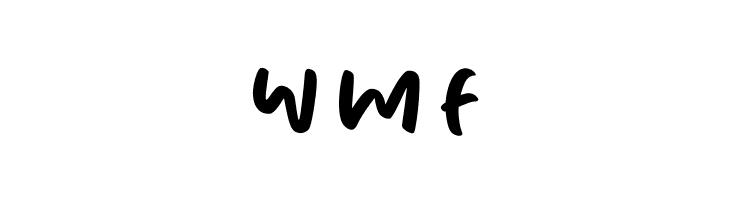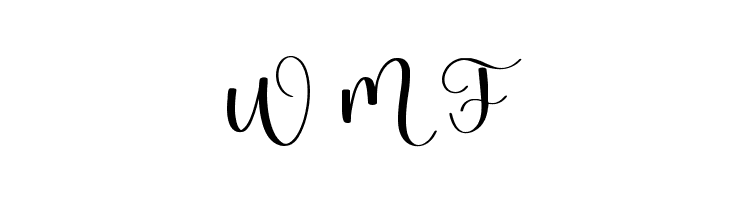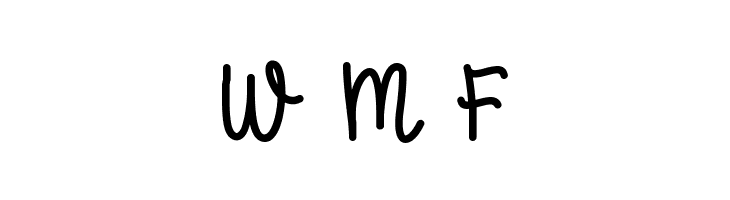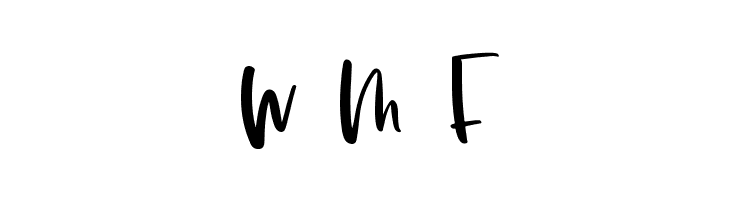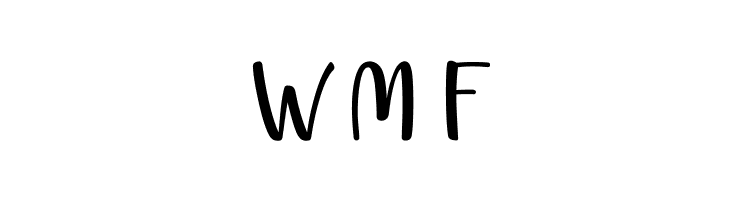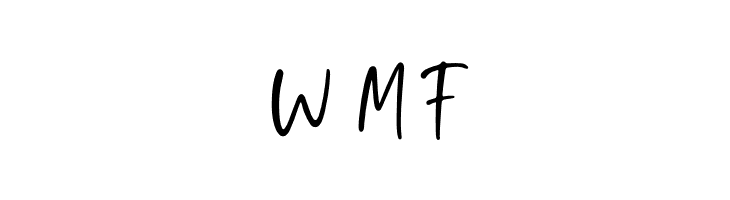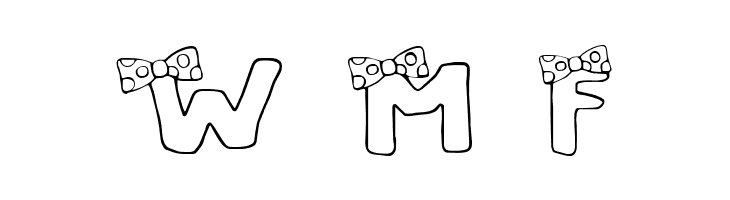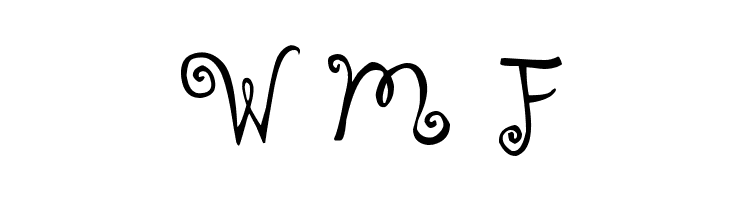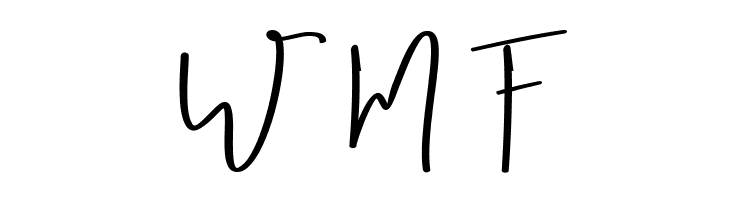
A decorative and elegant script font with flowing, intricate letterforms.
A bold, playful handwritten font with a dynamic and friendly style.
A lively, handwritten font with a casual and friendly style.
A whimsical, hand-drawn font with curly embellishments and a playful style.
A thin, whimsical font with a hand-drawn, organic feel.
A playful, whimsical script font with elegant loops and a handwritten feel.
A bold, playful handwritten font with smooth, thick strokes.
A playful, cursive script font with interconnected, smooth strokes.
A playful, handwritten font with bold, rounded characters and a whimsical style.
A playful, casual handwritten font with smooth, flowing curves.
A lively, expressive handwritten font with dynamic strokes.
A bold, handwritten font with playful, rounded strokes and a friendly appearance.
A playful, handwritten font with smooth, rounded edges and consistent stroke width.
A playful and modern handwritten font with fluid, dynamic strokes.
A bold, expressive script font with flowing, cursive letters and dramatic flourishes.
Elegant and casual handwritten script font.
A bold, jagged font with brush-like strokes and dynamic energy.